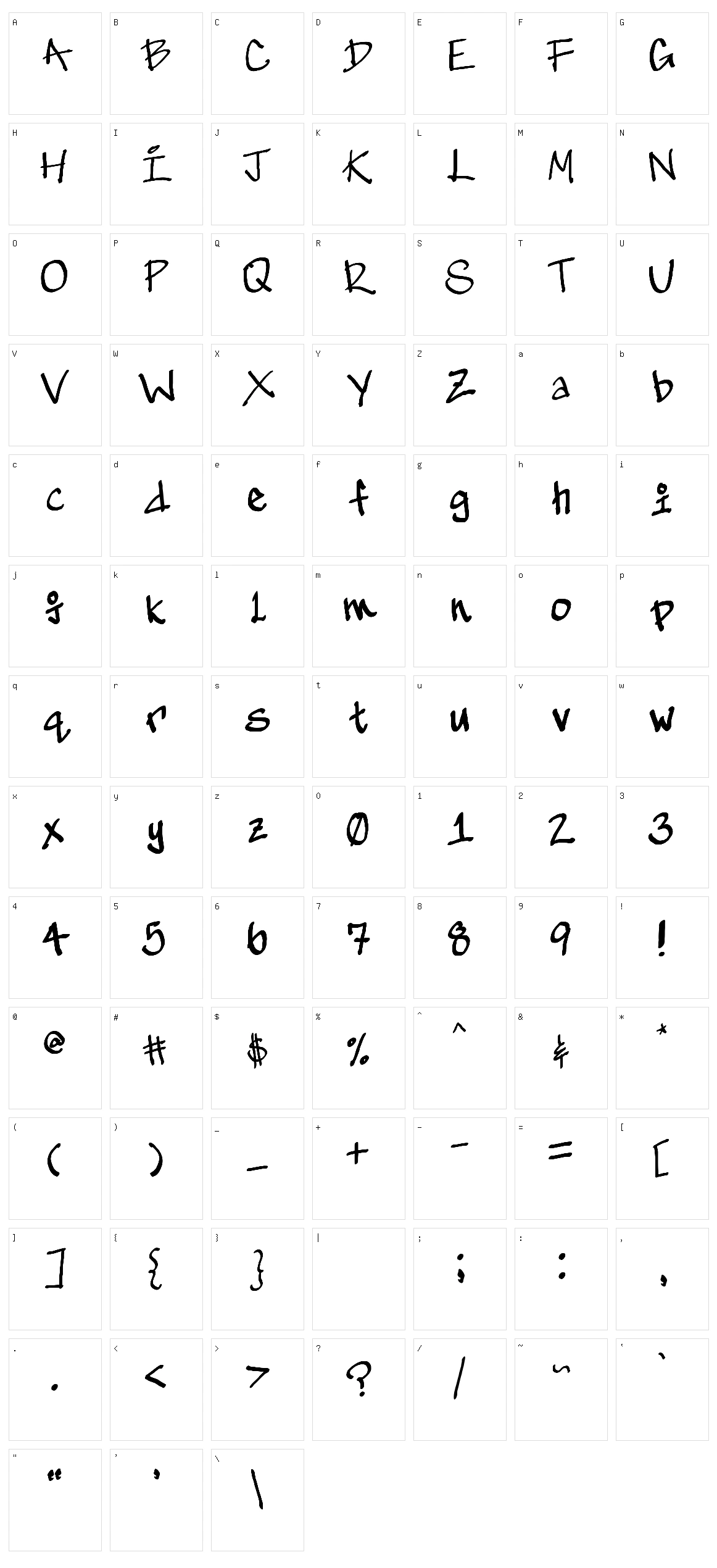
The free font GeeKnee is carefully designed by Genie, showcasing a thoughtful balance of creativity and usability and falls under the Script font style. When you download the ZIP file, it contains only 24.47 KB of font files, making it lightweight and quick to download. Please review the license details below to understand permitted usage and distribution rights. If license information is not available, we recommend using this font for personal projects only or contacting the author directly for commercial usage permissions.